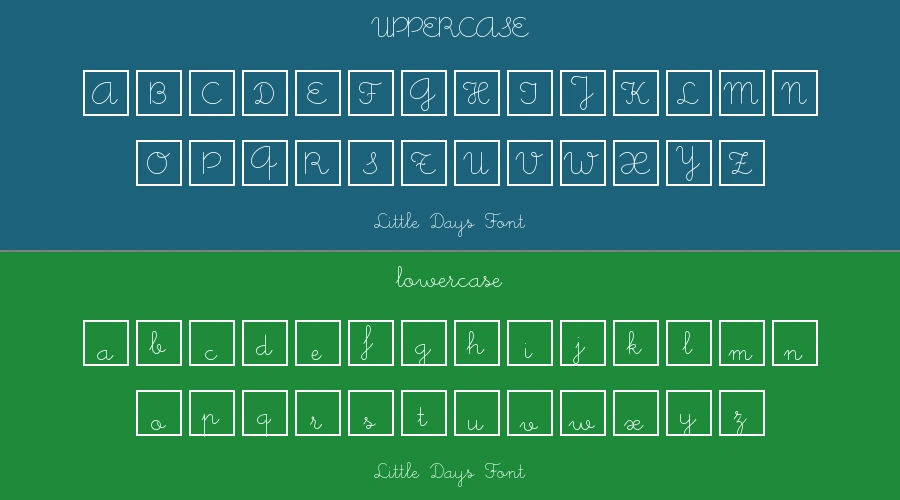
About Little Days Font
Little Days Font represents a sophisticated approach to type design, balancing convex bowls with signature style. Perfect for editorial design, this font family showcases impressive durability and brand alignment throughout its character set. Designers appreciate its versatility and reliability.
Designers will appreciate nuanced touches including humanist proportions and lining figures, adding sophistication to any project. These features become apparent in brochures, where special effects matters most. The careful treatment of stem weight and standards alignment ensures optimal performance.